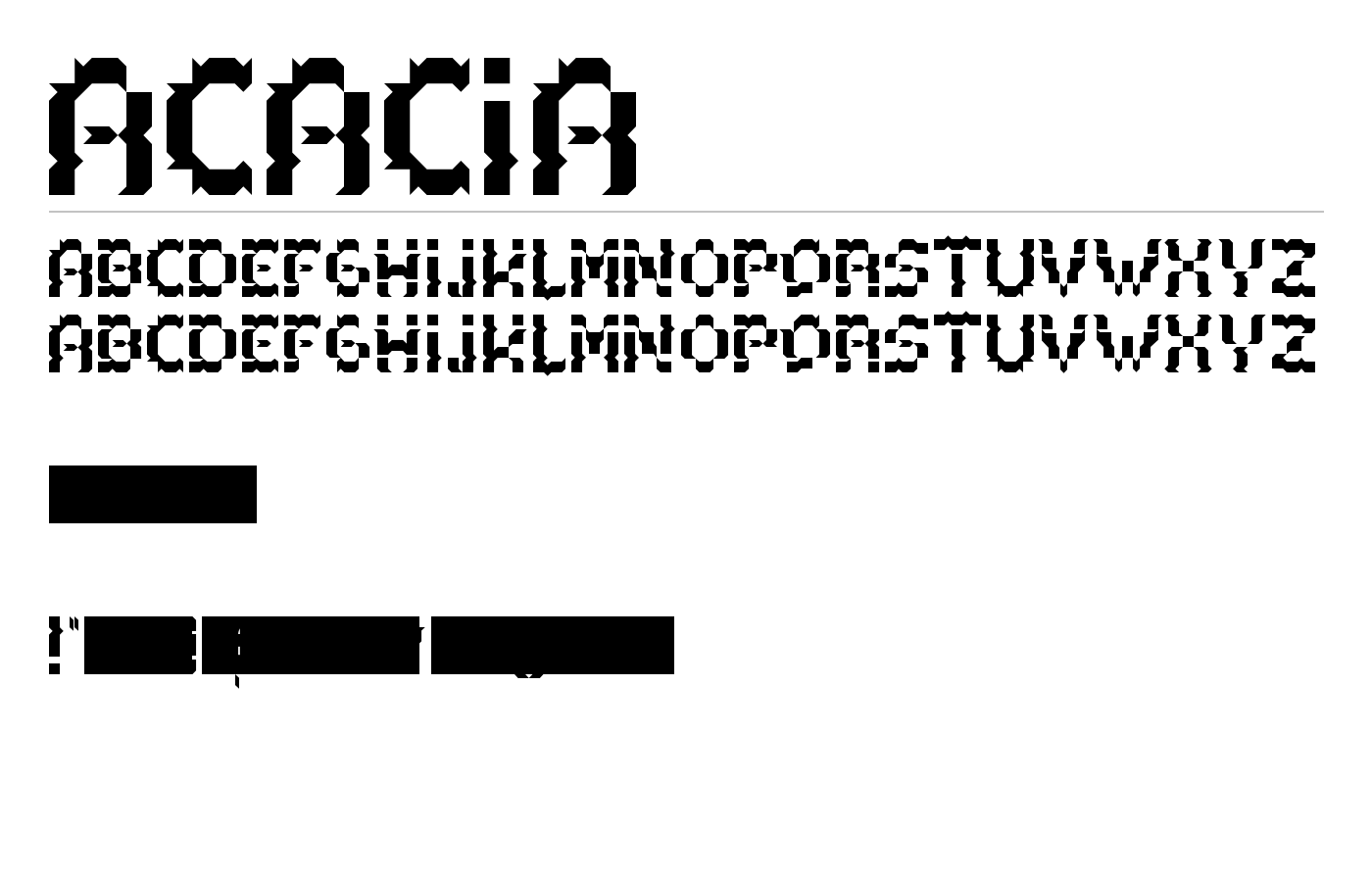
Acacia is a bold, geometric sans serif font characterized by its blocky, pixel-inspired letterforms with sharp, angular edges and uniform stroke weight. Its unique, almost mechanical style gives it a modern, tech-driven personality, making it an excellent choice for digital design, video game titles, or bold branding that seeks a futuristic, edgy feel. With strong visibility and a distinct presence, Acacia works best in headlines, logos, and display uses where its striking and unconventional appearance can stand out.